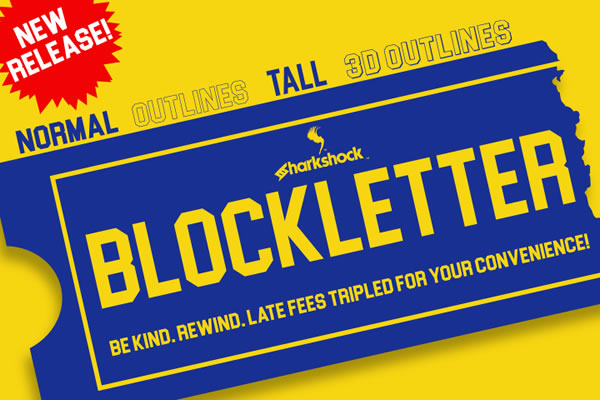
Welcome to the world of Blockletter Font!
Are you ready to add a touch of nostalgia to your designs? If so, Blockletter is the perfect font for you. This font is not just any font, it is a clean and basic sans serif created by Sharkshock. It is a complete overhaul based on a font designed years ago that captures the essence of the now-defunct Blockbuster Video logo.
Blockletter is more than just a font; it is a gateway to the past. It resembles the Hollywood sign, military lettering, and type found on collegiate apparel. Just imagine how your designs will look with Blockletter, reminiscent of a time when VHS tapes were king. It will add a unique touch to any project, whether it's a movie poster, a T-shirt design, or a book cover.
Not only is Blockletter aesthetically pleasing, but it also offers functionality. It features only uppercase characters and basic punctuation but contains European accents, diacritics, and kerning. This makes it a versatile font that can be used in a wide variety of projects.
So, who's up for a movie night? Let Blockletter take you on a journey to a distant land far, far away. With its captivating and emotional appeal, it's impossible not to fall in love with Blockletter. It's the perfect choice for anyone who wants to stand out from the crowd.